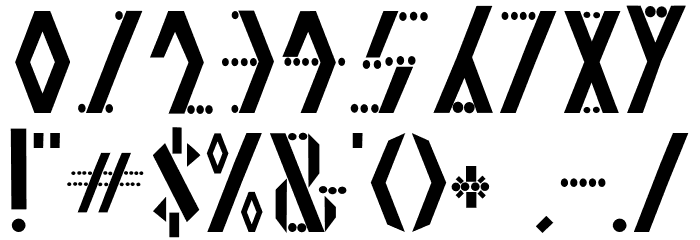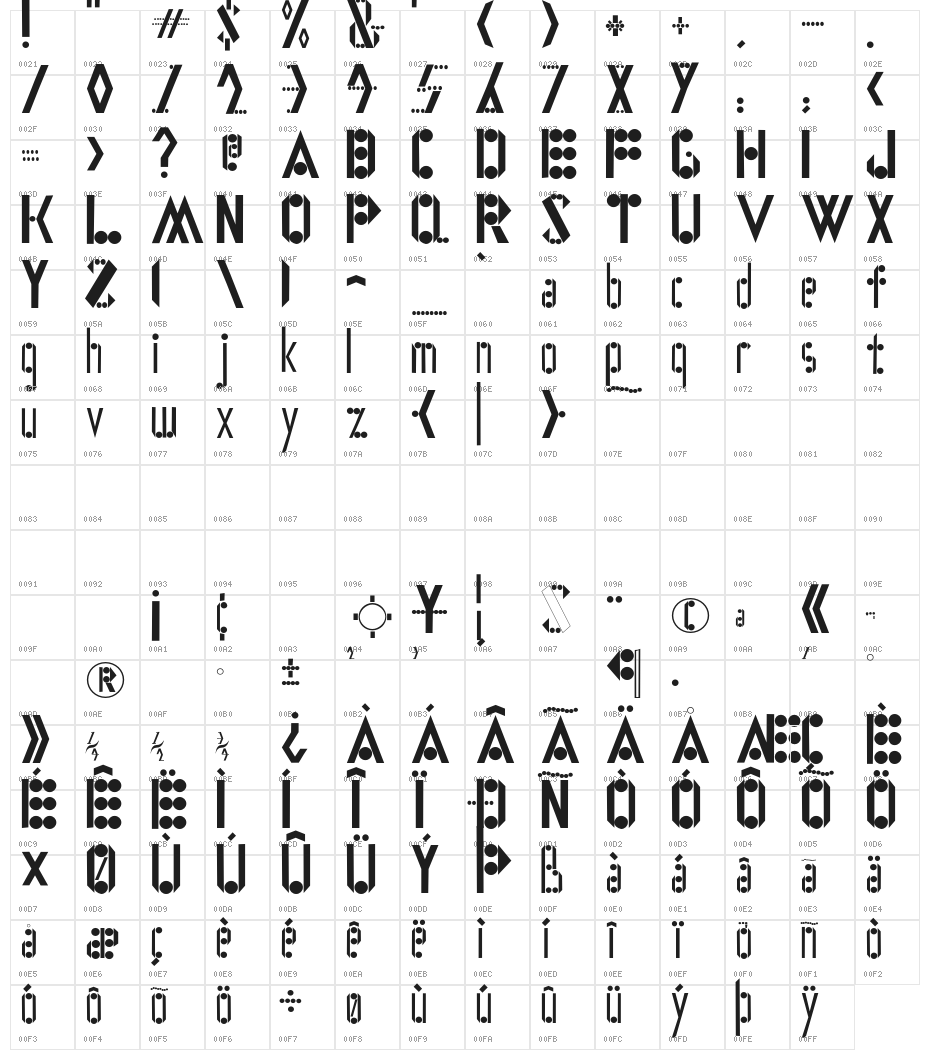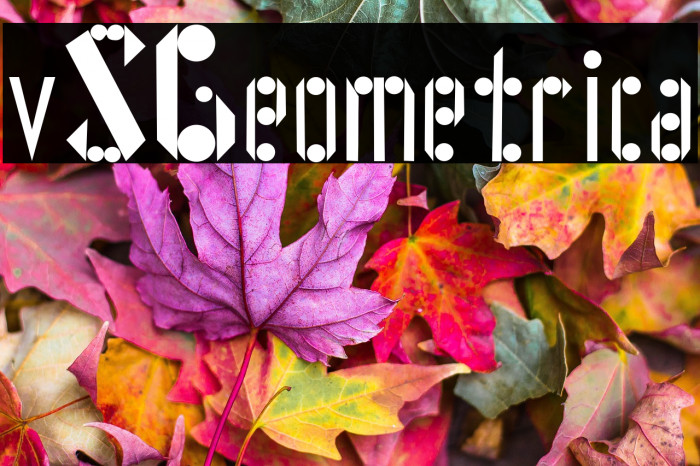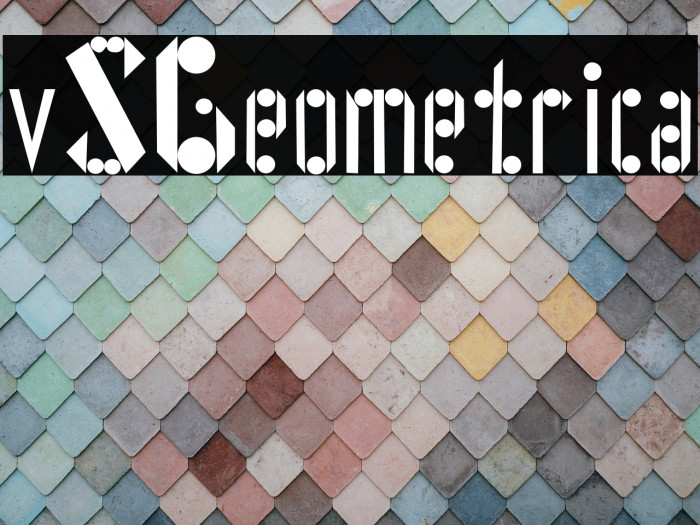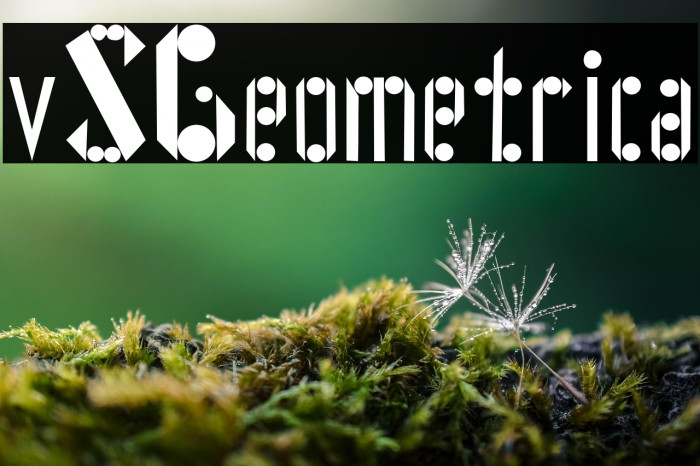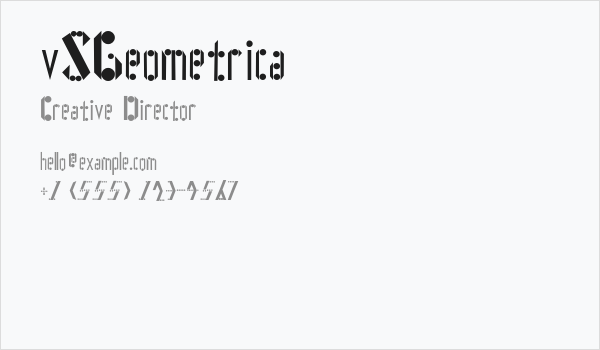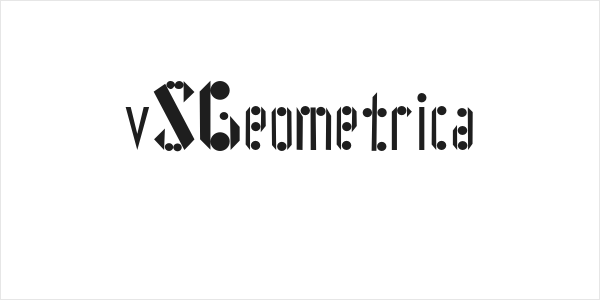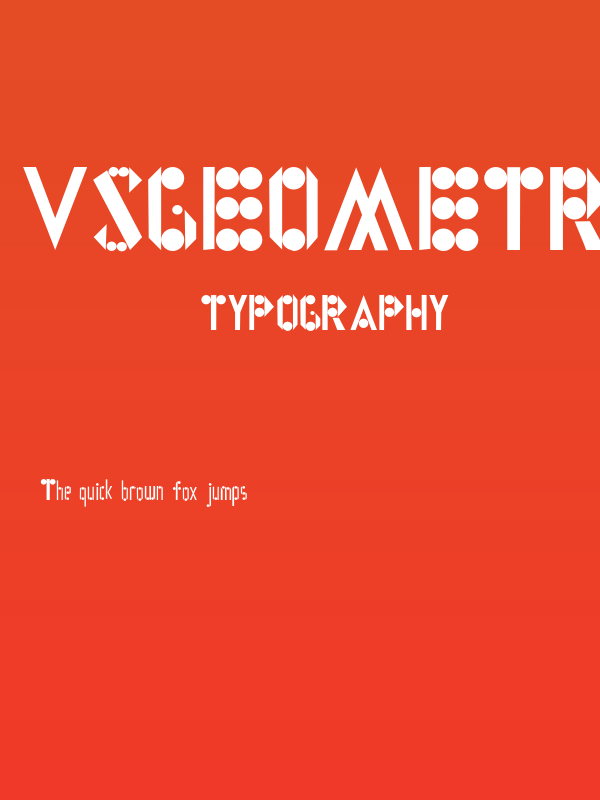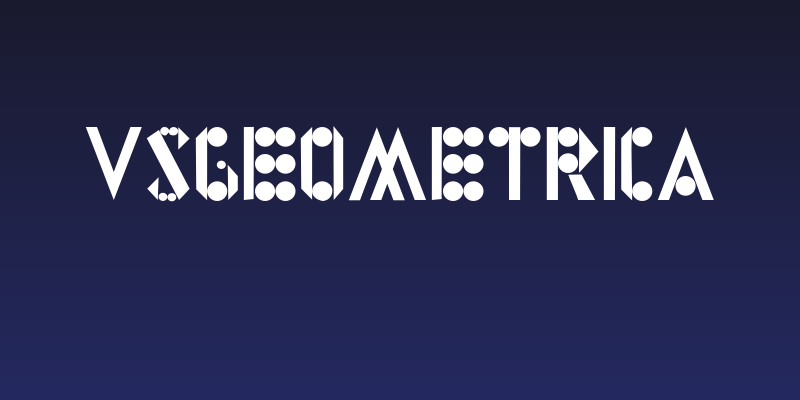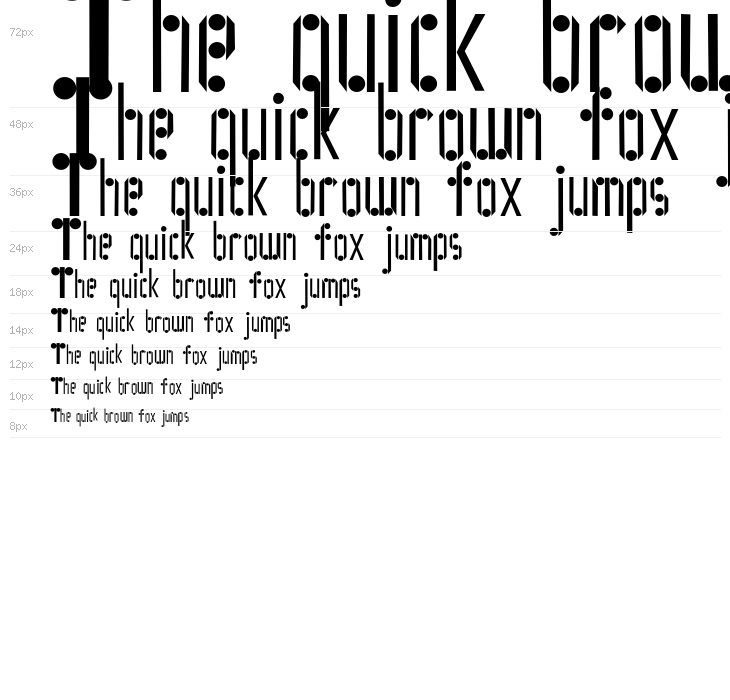
vSGeometrica Font
vSGeometrica Description
This font features a bold and geometric design with a unique combination of solid and dotted elements. The uppercase letters are characterized by strong, angular lines and circular dots that create a striking visual contrast. The lowercase letters maintain a similar style, with elongated forms and consistent use of circular motifs. Numbers and special characters follow the same geometric theme, ensuring a cohesive appearance across all glyphs. The overall design is modern and eye-catching, making it suitable for projects that require a distinctive and artistic touch.